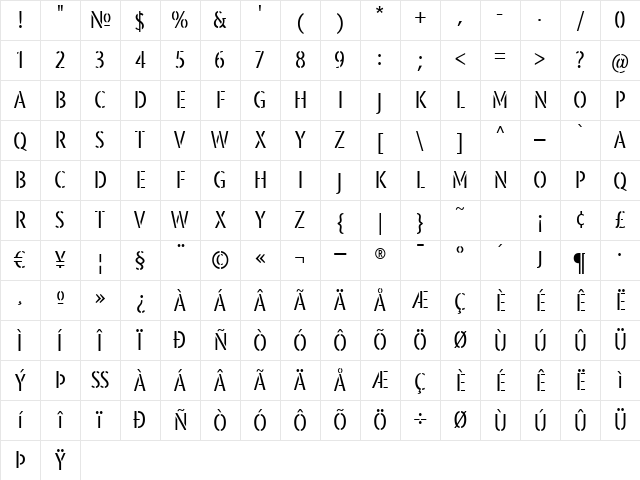
Platoon Regular Free Font
Platoon Regular
Design Context for Platoon
Platoon is a composed and adaptable typeface that performs quietly and consistently across a wide range of design contexts.